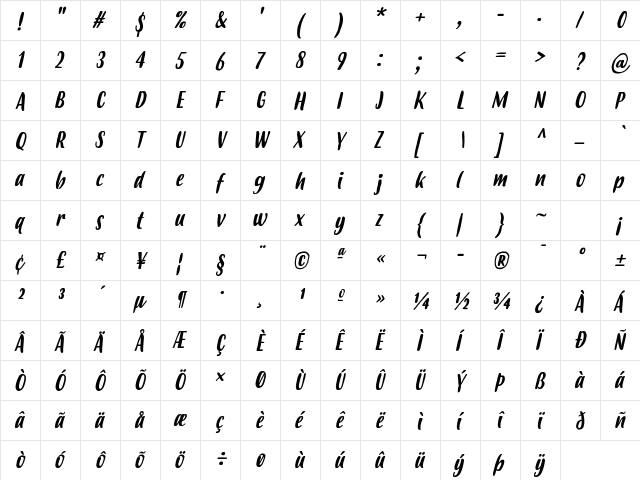
Budidaya Italic
| Designer | Situjuh Nazara |
Design Context for Budidaya Typeface
Budidaya is a composed and adaptable typeface that performs quietly and consistently across a wide range of design contexts. Its italic angle brings a sense of urgency and motion to the letterforms.
Pro Tip: Try Budidaya for annotation and caption copy alongside an upright companion — the contrast in angle creates a dynamic but ordered typographic system.